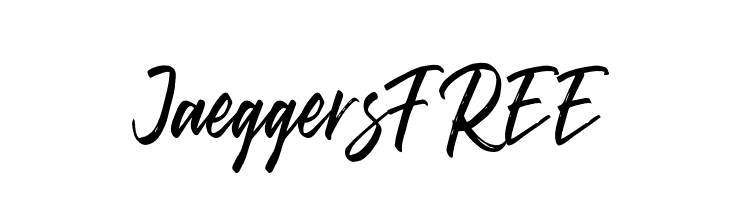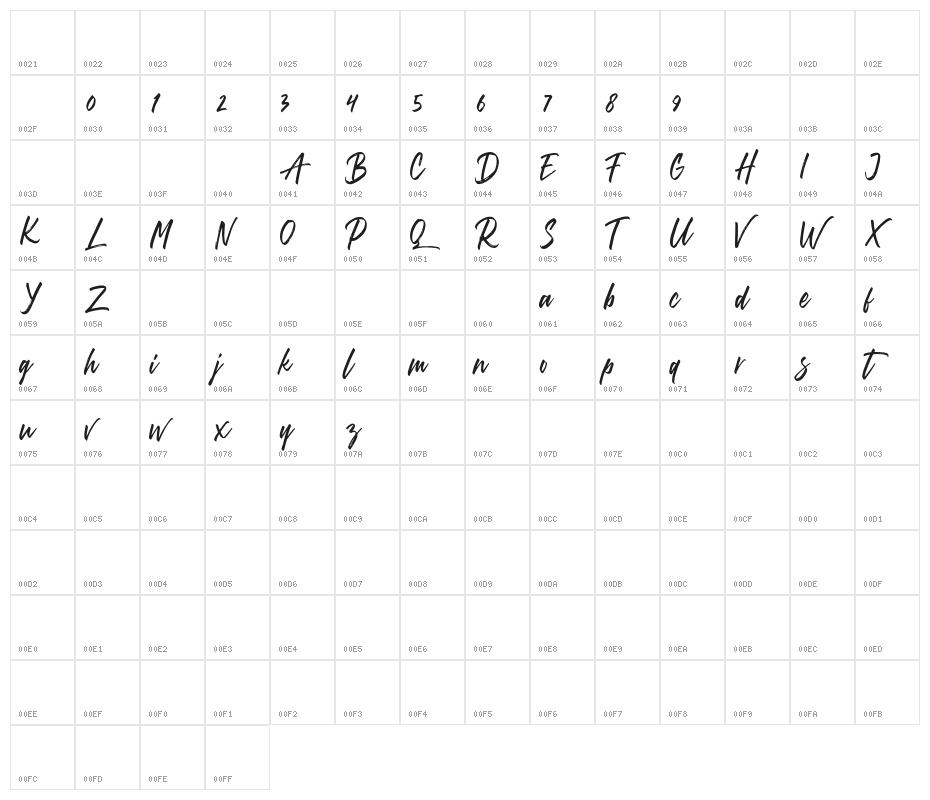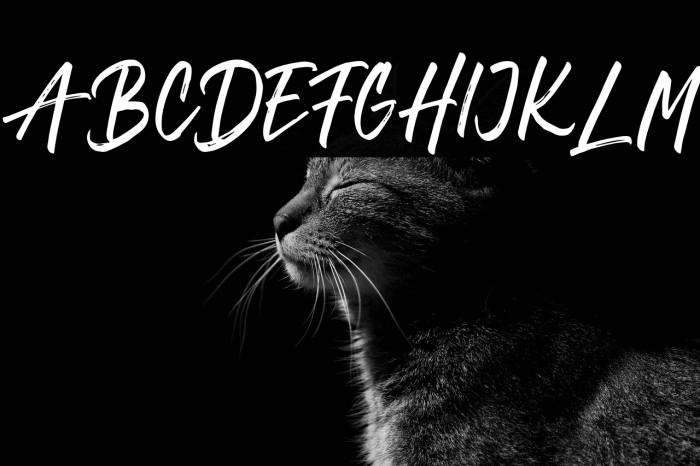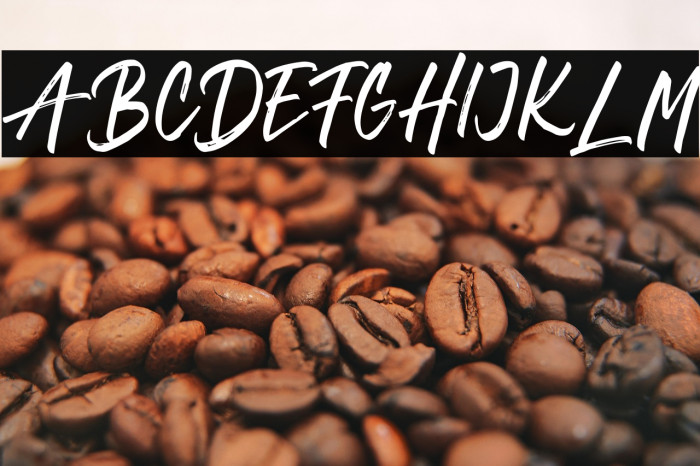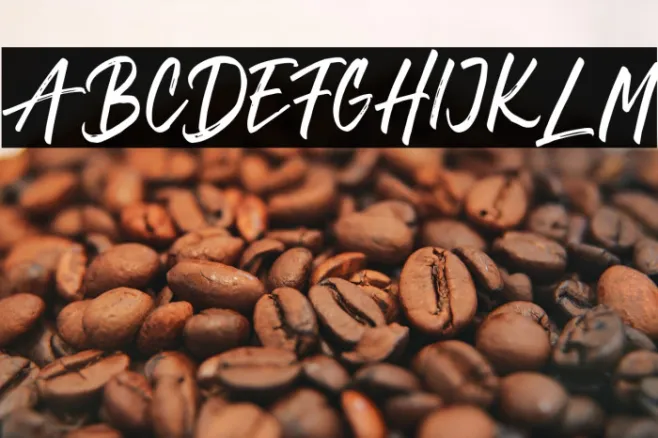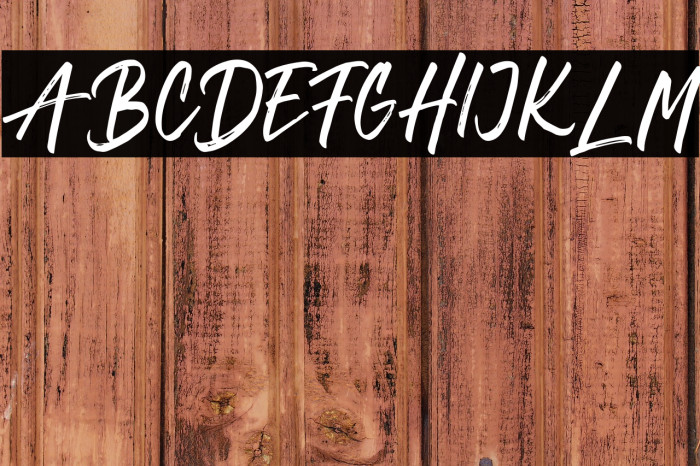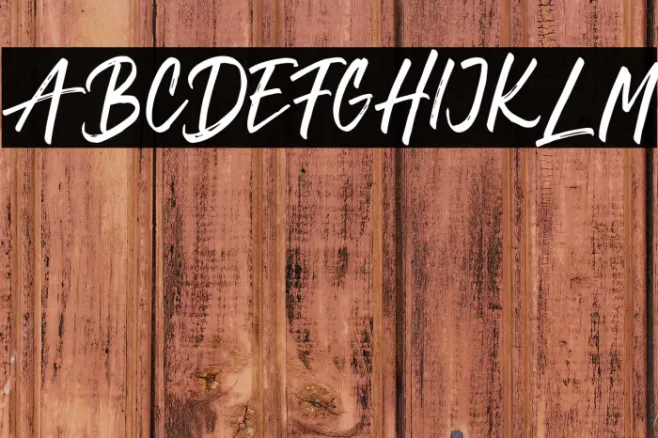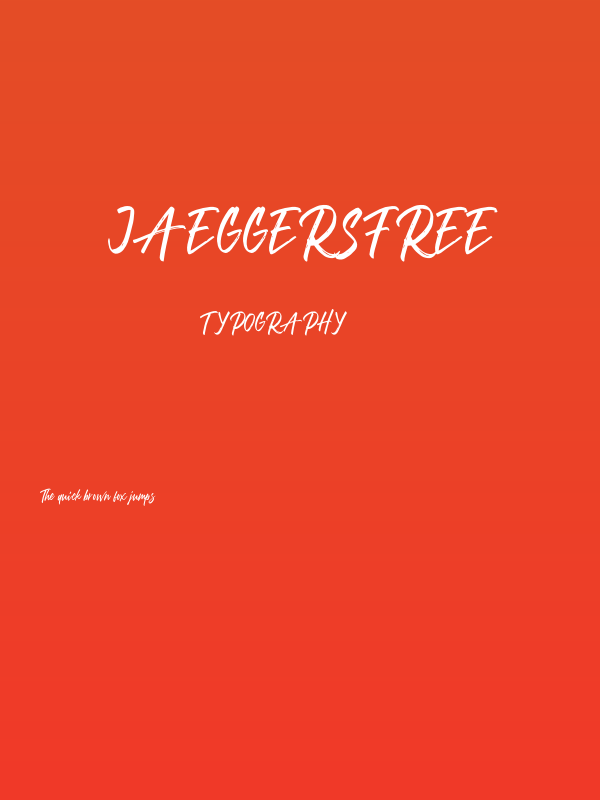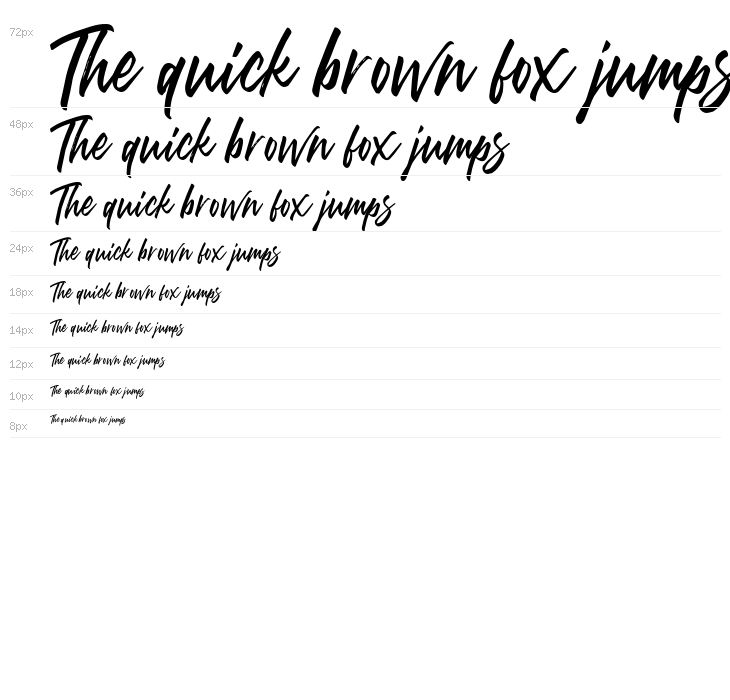
JaeggersFREE Font
JaeggersFREE Description
A bold, expressive handwritten script font with a dynamic and energetic style. It features irregular strokes and a casual, artistic appearance.
| Overall Style | Decorative |
| Use Case | Logos, Headlines |
| Proposed Projects | Greeting cards, invitations, posters, branding. |